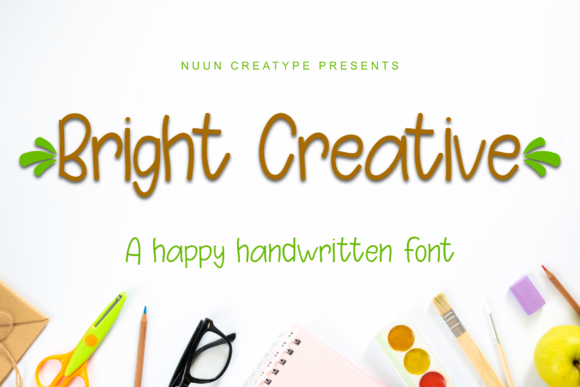
**Introducing Bright Creative Font: The Key to Unlocking Your Creative Potential**
Prepare to be dazzled by Bright Creative Font, the enchanting script font that embodies minimalism and simplicity. Its delicate strokes, reminiscent of a gentle caress, will infuse your creations with a touch of warmth and charm.
**A Font with a Heart of Gold**
Bright Creative is not just a font; it's a gateway to a world of endless possibilities. Its thin and welcoming nature creates an atmosphere of comfort and tranquility, making it the perfect choice for adding a personal touch to your designs.
**The Muse for Your Creative Pursuits**
Unleash your imagination with Bright Creative, the font that will spark your creativity like never before. Whether you're crafting heartfelt wedding invitations, designing exquisite stationery, or creating captivating social media posts, Bright Creative will elevate your every creation.
**A Font for Every Occasion**
From the allure of wedding vows to the warmth of greeting cards, Bright Creative's versatility knows no bounds. Its adaptable nature makes it the perfect companion for a myriad of projects, ensuring that your designs always leave a lasting impression.
**Experience the Magic of Simplicity**
Bright Creative's minimalist design philosophy allows your message to shine through, free from distractions. Its simplicity creates a canvas upon which your creativity can flourish, resulting in designs that are both captivating and timeless.
**A Touch of Authenticity**
Infuse your designs with a touch of authenticity, courtesy of Bright Creative's genuine feel. Its organic strokes evoke a sense of handmade charm, adding a layer of warmth and individuality to your projects.
**Your Creative Journey Begins Here**
Embrace Bright Creative Font today and embark on a journey of endless creativity. Its enchanting charm and undeniable versatility will empower you to create designs that captivate hearts and leave an indelible mark on the world.